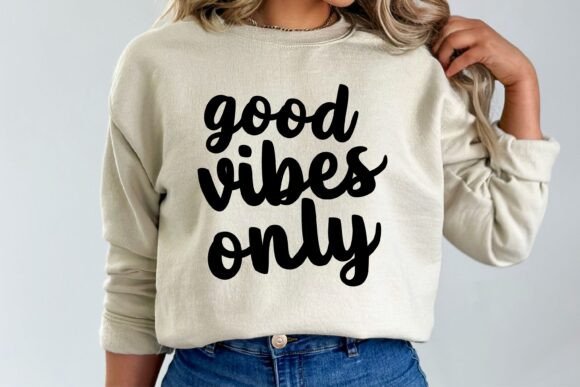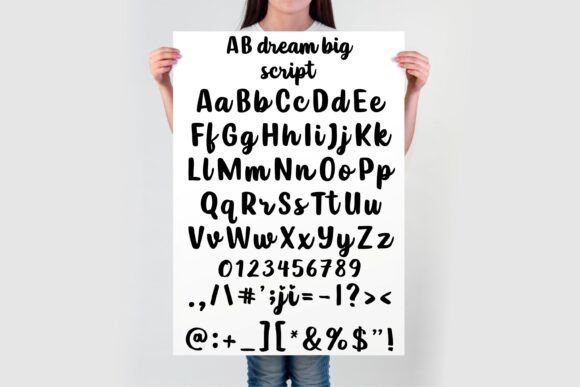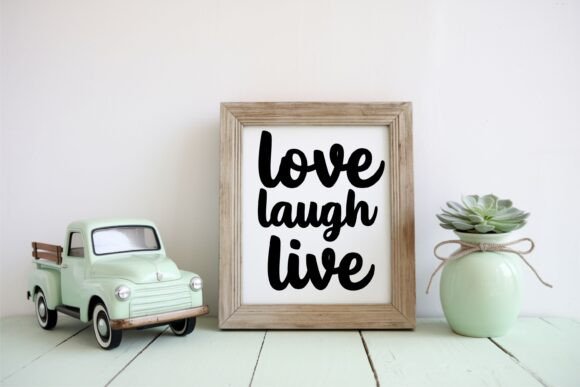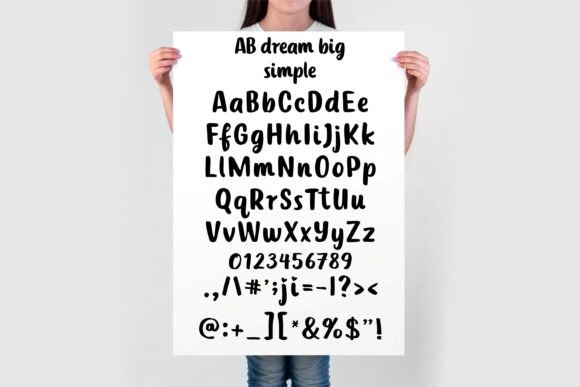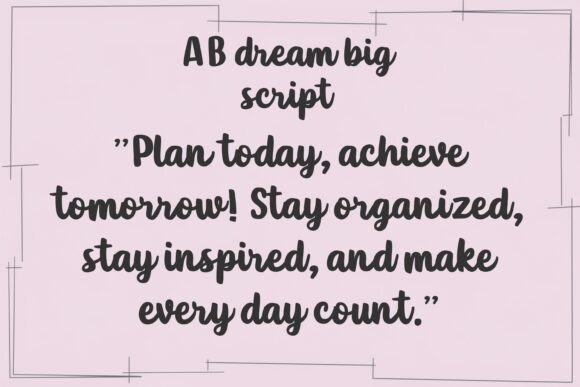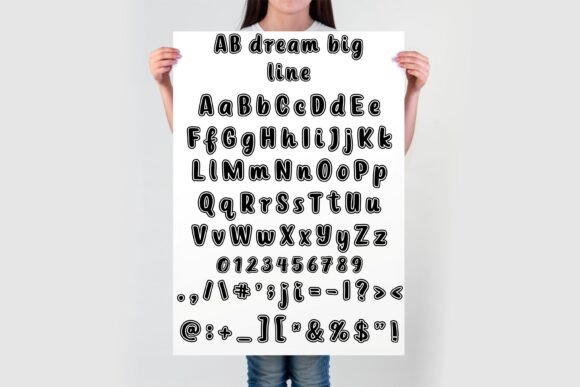
Unlock Endless Creativity with the AB Dream Big Font Bundle
Are you a designer, crafter, or small business owner looking for the perfect font to elevate your creative projects? Look no further than the AB Dream Big Font Bundle! This versatile and modern handwritten script font is designed to bring your ideas to life. With four unique styles to choose from, you’ll have the flexibility to create a wide range of projects that showcase your personal style.
What Sets AB Dream Big Apart?
The AB Dream Big Font Bundle is more than just a font – it’s a creative solution for anyone looking to add a personal touch to their designs. Here are just a few reasons why this font bundle stands out:
- Four Unique Styles: The AB Dream Big Font Bundle includes four distinct styles: Script, Regular, Sketch, and Line. Whether you need a fun, thick script or a stylish handwritten font, this bundle has you covered.
- Playful and Modern: This font is perfect for crafters, teachers, small business owners, and digital designers who want to add a touch of personality to their projects.
Endless Possibilities for Your Creative Projects
The AB Dream Big Font Bundle is designed to help you bring your creative visions to life. Here are just a few ideas to get you started:
- T-Shirts and Apparel: Create custom t-shirts, hoodies, and other apparel with unique and stylish designs.
- Mugs and Drinkware: Add a personal touch to mugs, water bottles, and other drinkware with fun and colorful designs.
- Greeting Cards and Stationery: Create one-of-a-kind greeting cards, planners, and stationery that showcase your personality.
- Stickers and Labels: Design custom stickers and labels for your products, packages, or crafts.
- Branding Materials: Use the AB Dream Big Font Bundle to create consistent and recognizable branding materials, such as logos, business cards, and brochures.
Why Designers and Crafters Love the AB Dream Big Font Bundle
The AB Dream Big Font Bundle is a favorite among designers and crafters for several reasons:
- High-Quality: The AB Dream Big Font Bundle is designed to produce high-quality results, ensuring that your projects look professional and polished.
- Time-Saving: With four unique styles to choose from, you can create a wide range of projects without having to search for multiple fonts.
Get Ready to Dream Big!
If you’re looking for a font that will help you take your creative projects to the next level, look no further than the AB Dream Big Font Bundle. With its playful and modern design, versatile styles, and endless possibilities for use, this font bundle is sure to become a staple in your design toolkit.